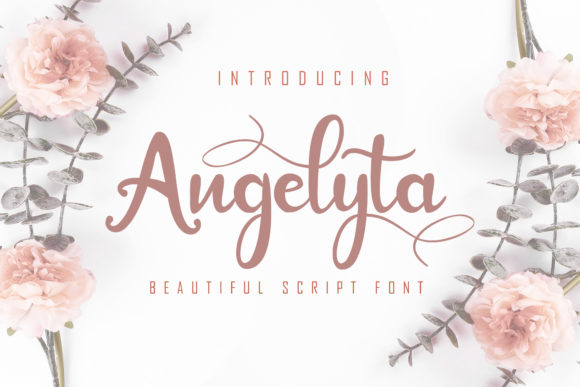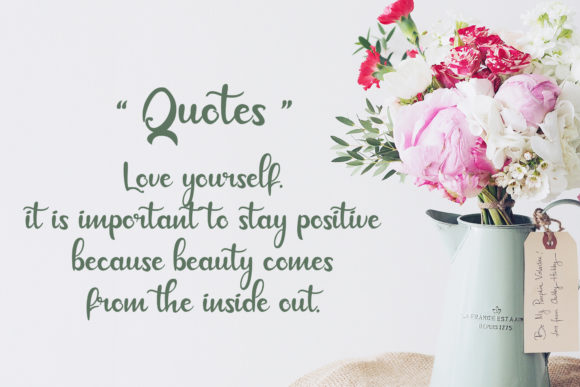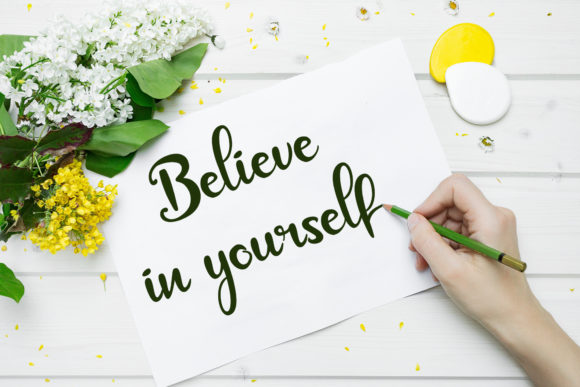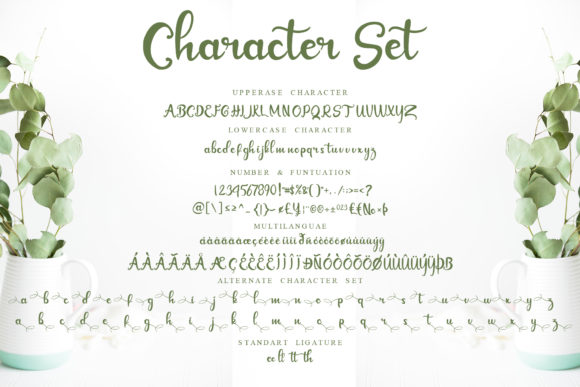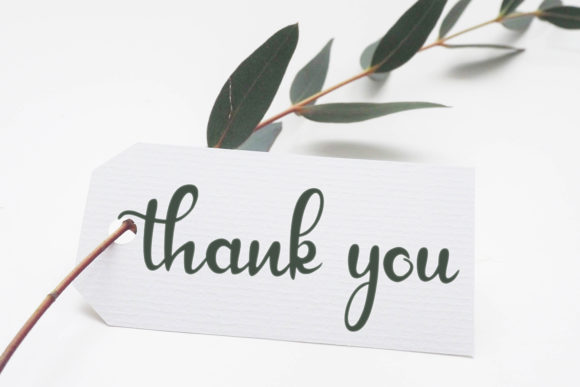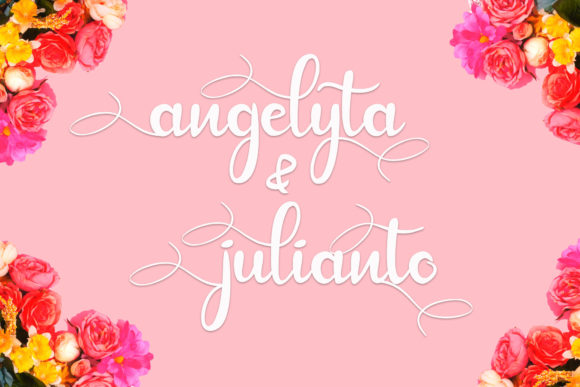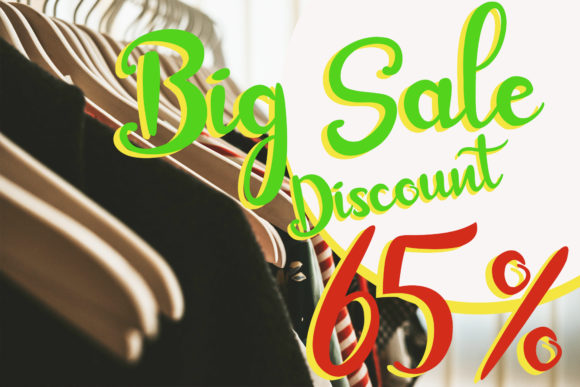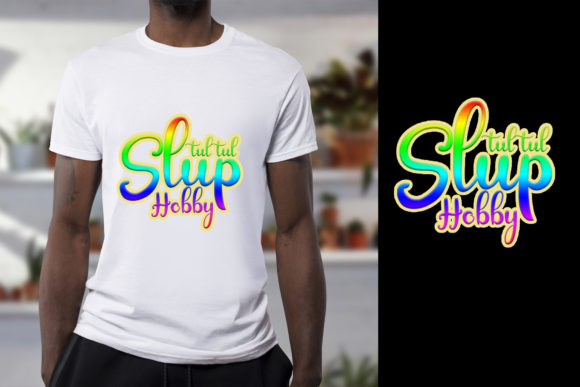
Angelyta Font
About Angelyta Font
Angelyta is an incredibly sweet and cool handwritten font with amazing swashes. It will add a romantic spark to any design project!